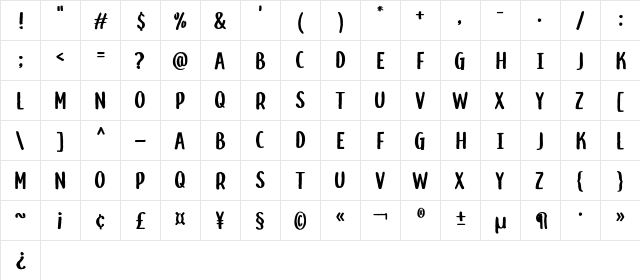
Grape Demo Regular
| Foundry | phitradesign |
| Designer | Philip Trautman |
Design Context for Grape Demo Typeface
Grape Demo is a composed and adaptable typeface that performs quietly and consistently across a wide range of design contexts.